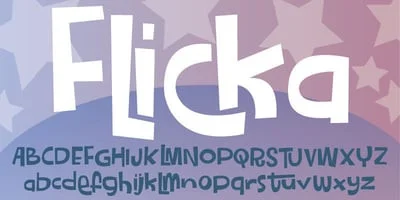
Flicka Font
Flicka Font is perfect for branding projects, logo design, wedding invitations, social media graphics, poster design, book covers, website headers, packaging design, greeting cards, and modern typography layouts that require a distinctive contemporary appeal.
This font is exciting because it combines modern elegance with exceptional readability, featuring unique character designs that make any text stand out while maintaining professional sophistication. Flicka Font offers versatility that works seamlessly across both digital and print media, making it an essential addition to any designer's toolkit.
Flicka Font family includes multiple weights and styles: Regular, Bold, Light, Italic, Bold Italic, Condensed, and Extended versions, providing comprehensive typographic solutions for various design needs and creative applications.
Whether you're working on corporate branding or creative projects, Flicka Font delivers exceptional quality and style. The font's clean lines and modern aesthetic make it suitable for contemporary design trends while ensuring excellent legibility across all platforms. Its character set supports multiple languages, making it globally accessible for international projects. The font's spacing and kerning have been meticulously crafted to ensure optimal reading experience in both headlines and body text applications. Professional designers appreciate its consistency and reliability in various design contexts.